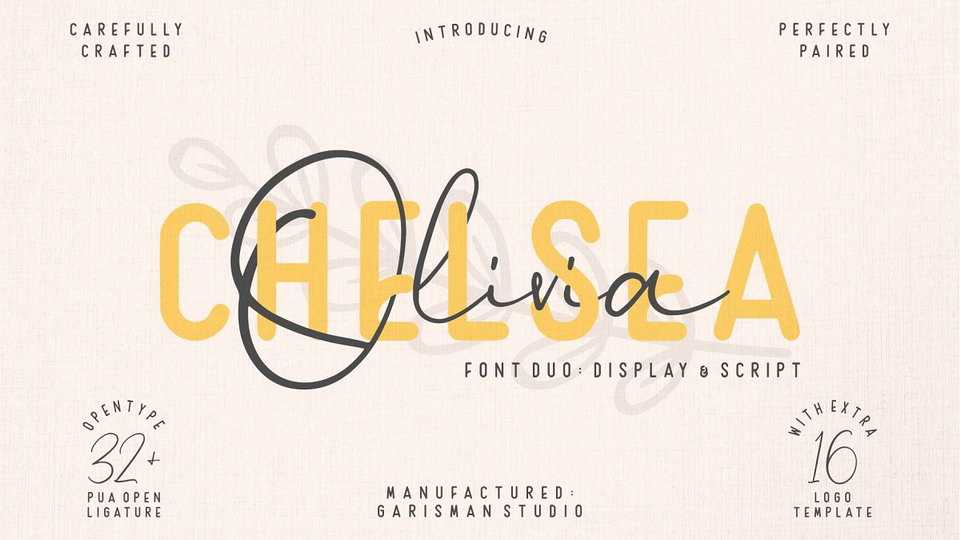
Chelsea Olivia Script Font › Fontesk – Download Grátis
Download Chelsea Olivia font duo is a warm and elegant Script and a soft Sans. Perfect for logos (including 16 pre-made logos and you can edit them again), wedding invitations, easter, posters, business cards, logos, headlines, Instagram stories, youtube stories, book cover, poster promotion and many more!
Designer: Garisman Studio